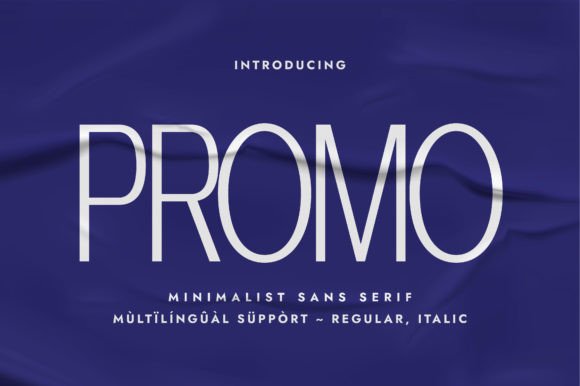
**Introducing Promo: The Font That Makes Your Designs POP!**
Prepare to transform your designs with Promo, a captivating sans serif font that commands instant attention with its clean and chic style. Crafted by the skilled designers at Minimalistartstudio, Promo effortlessly elevates any project, lending a touch of sophistication and modernity. Whether you're crafting eye-catching headlines, captivating social media graphics, or designing stunning websites, Promo's minimalist charm will elevate your work to new heights.
Promo shines brightest when paired with clothing designs. Its sharp lines and graceful curves perfectly accentuate the beauty of fabrics, making it the ideal choice for fashion brands and designers seeking to showcase their creations in style. The font's versatility extends beyond the world of fashion, seamlessly adapting to a wide range of design projects. From sleek logos and branding materials to elegant invitations and wedding stationery, Promo's timeless appeal will leave a lasting impression on all who encounter it.
Embrace the power of Promo and witness the transformation of your designs. Its captivating presence will captivate your audience, leaving them utterly charmed and eager to engage with your content. Don't settle for ordinary fonts; choose Promo today and unlock a world of visual brilliance.